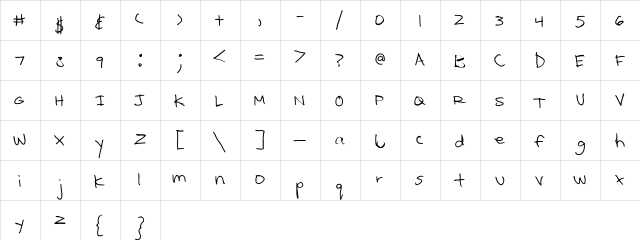
Kcirtap Regular
Design Context for Kcirtap Typeface
Kcirtap is a composed and adaptable typeface that performs quietly and consistently across a wide range of design contexts.